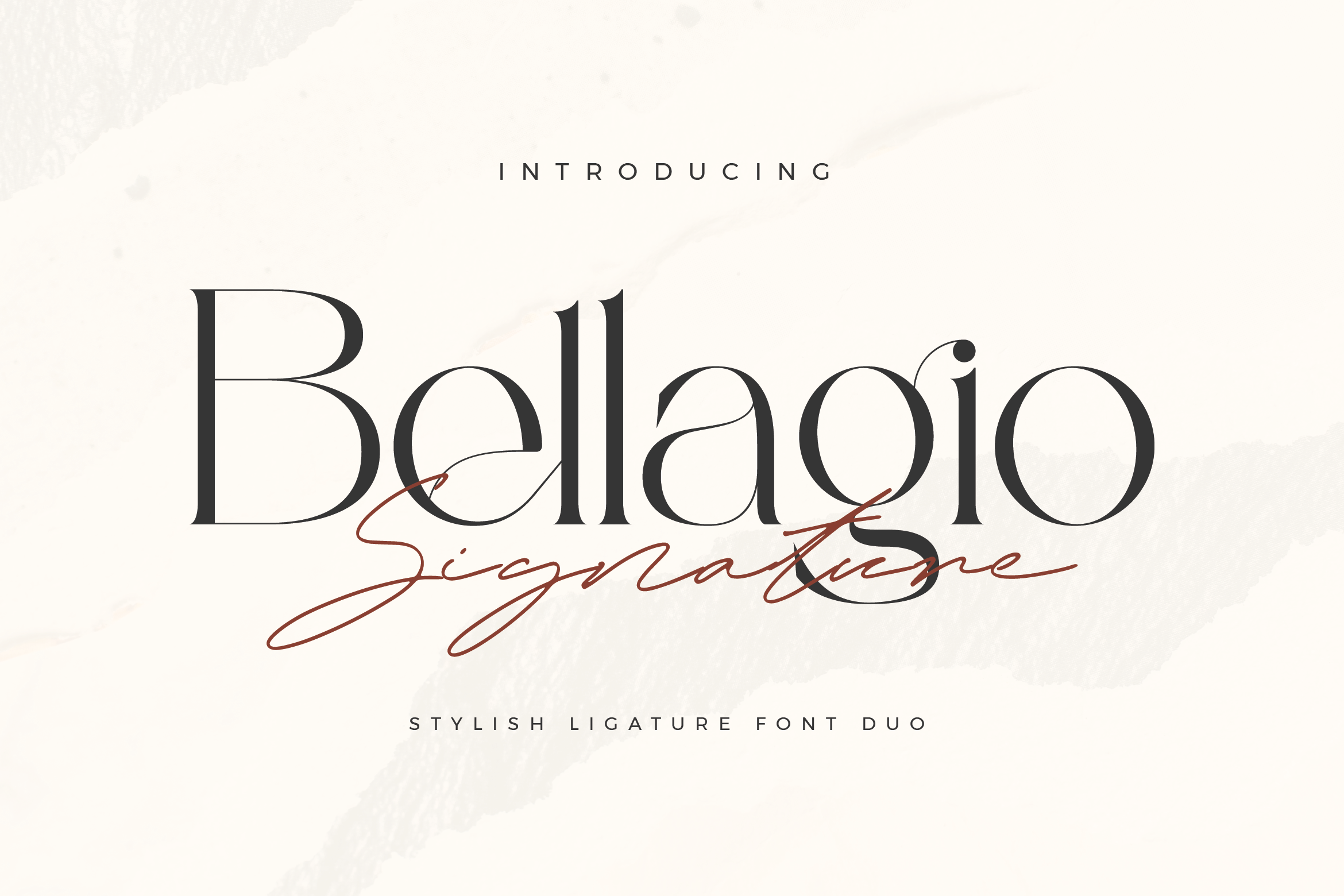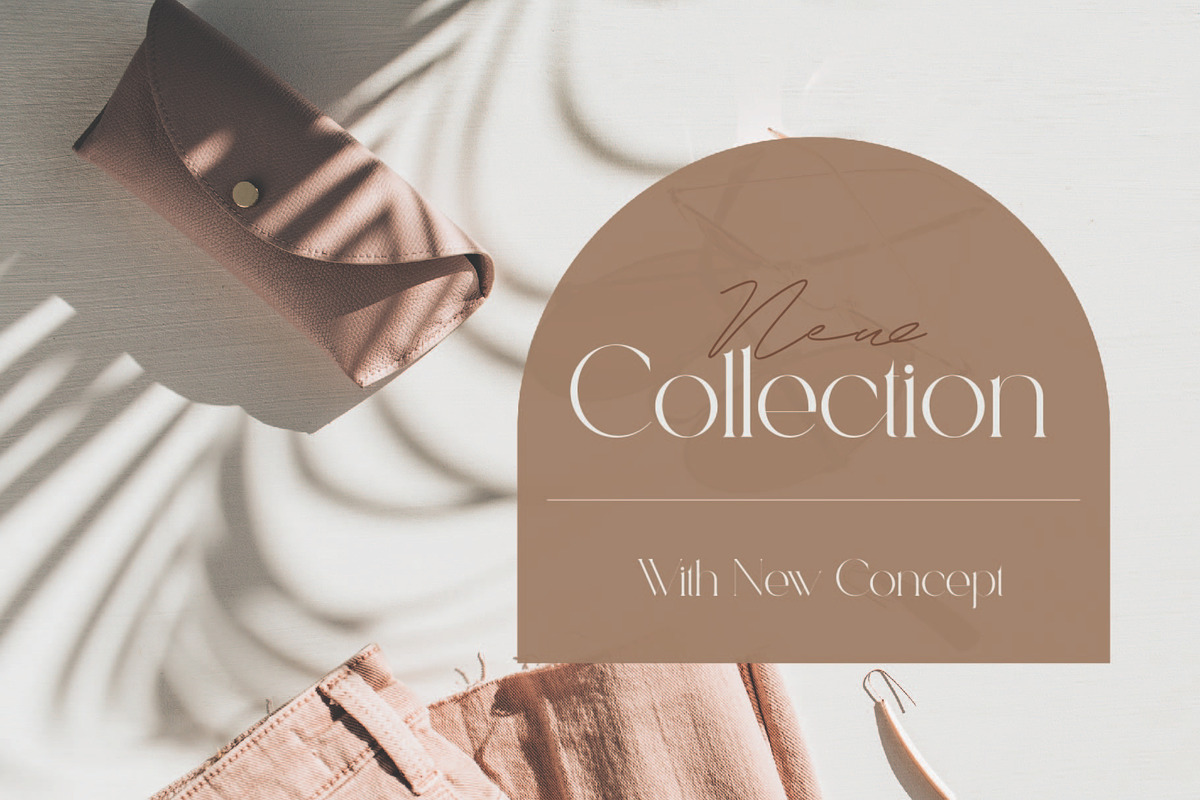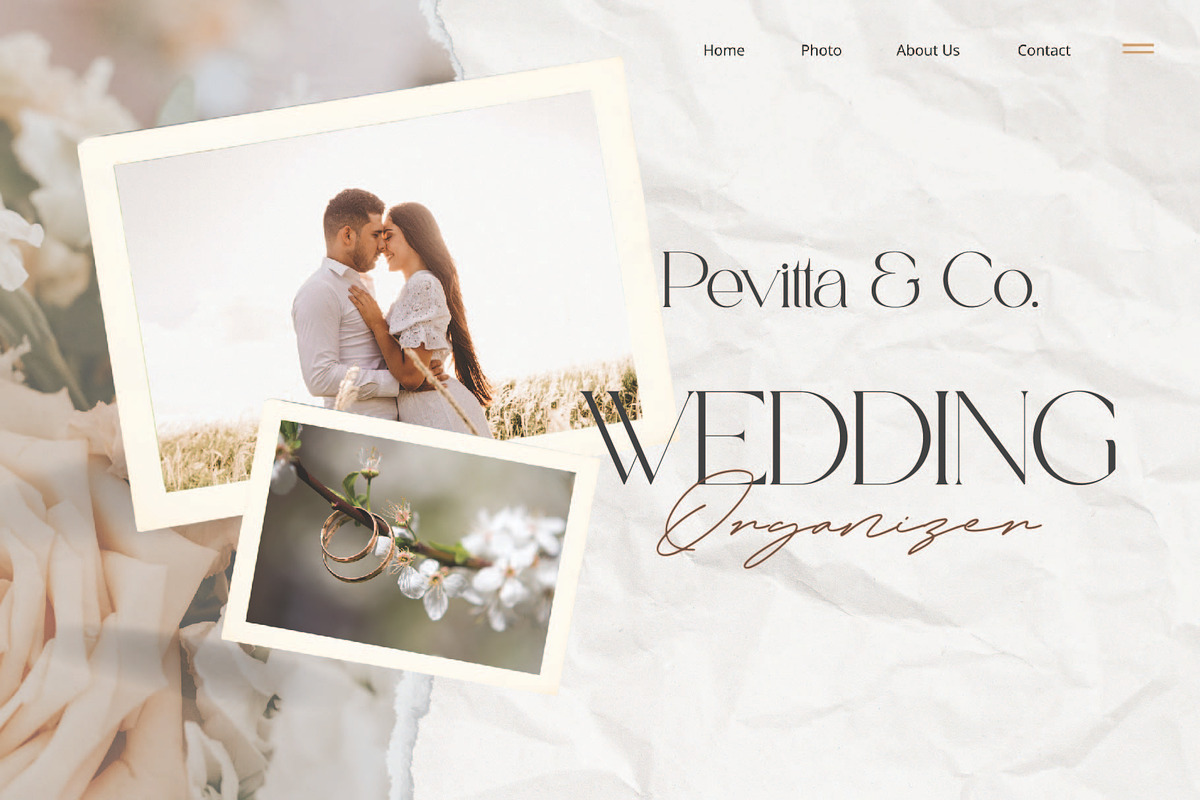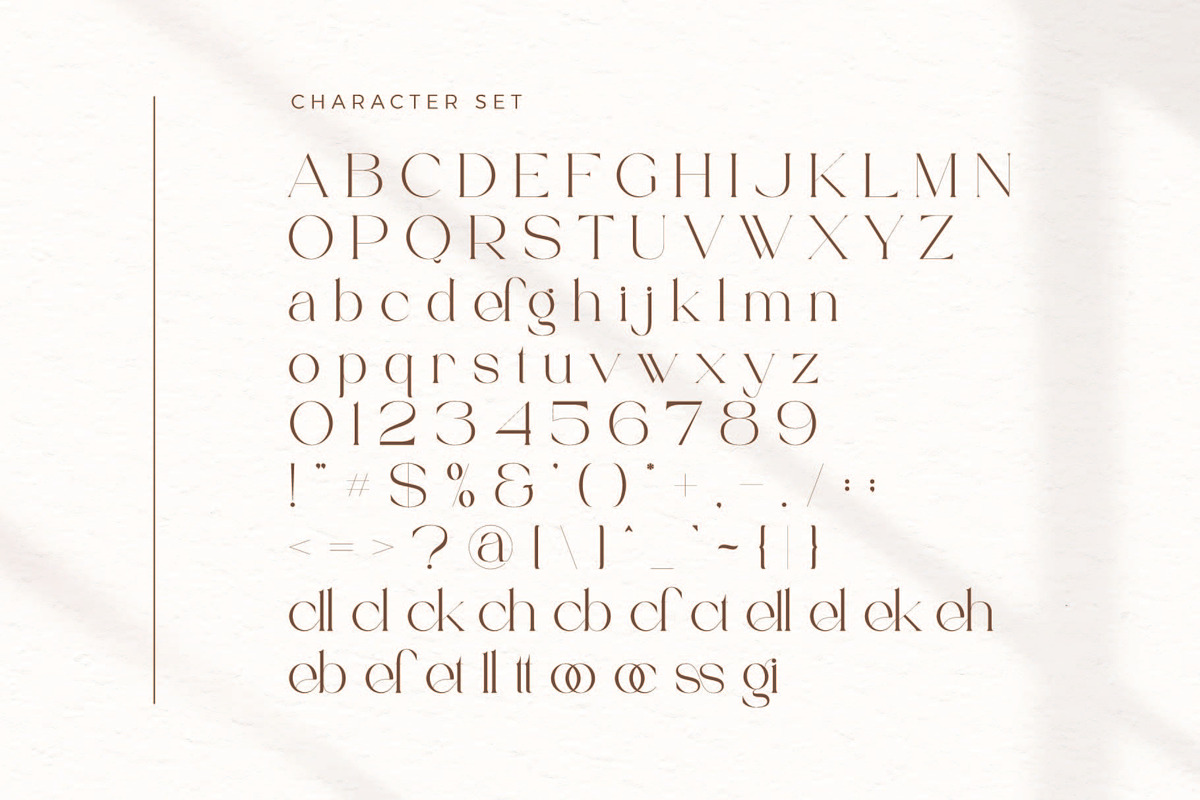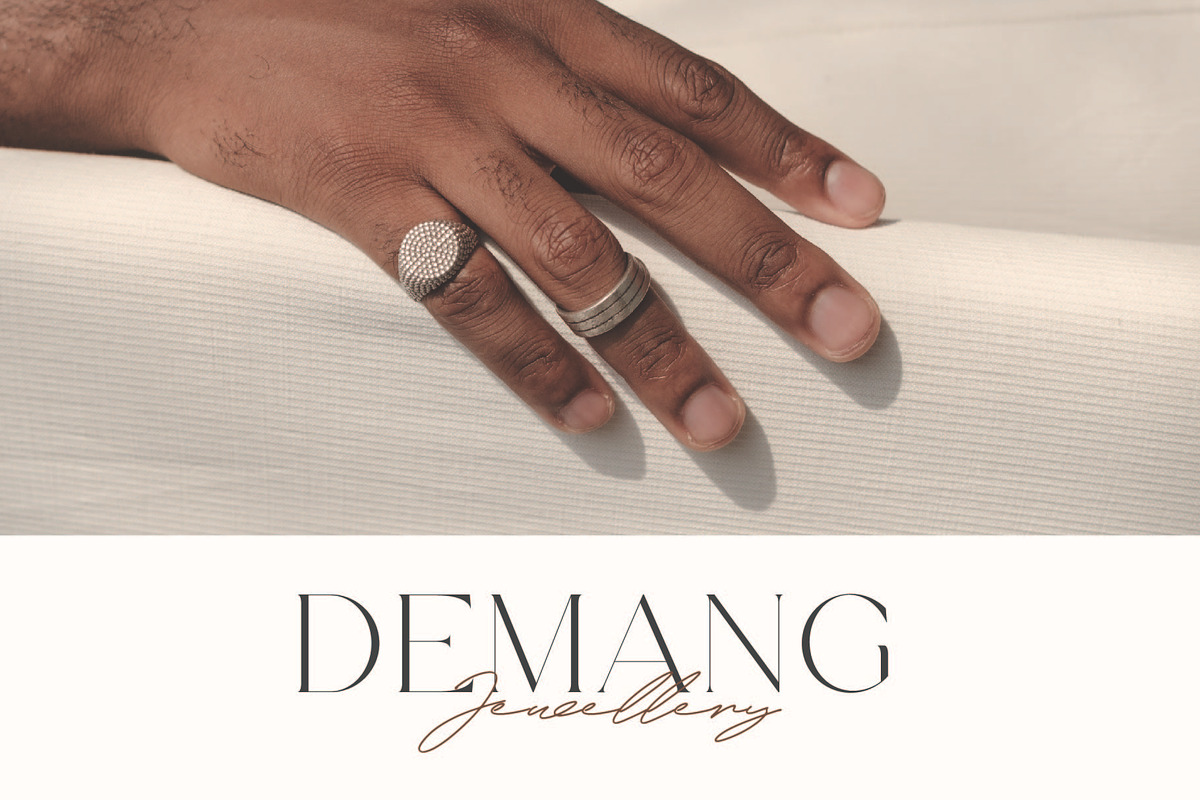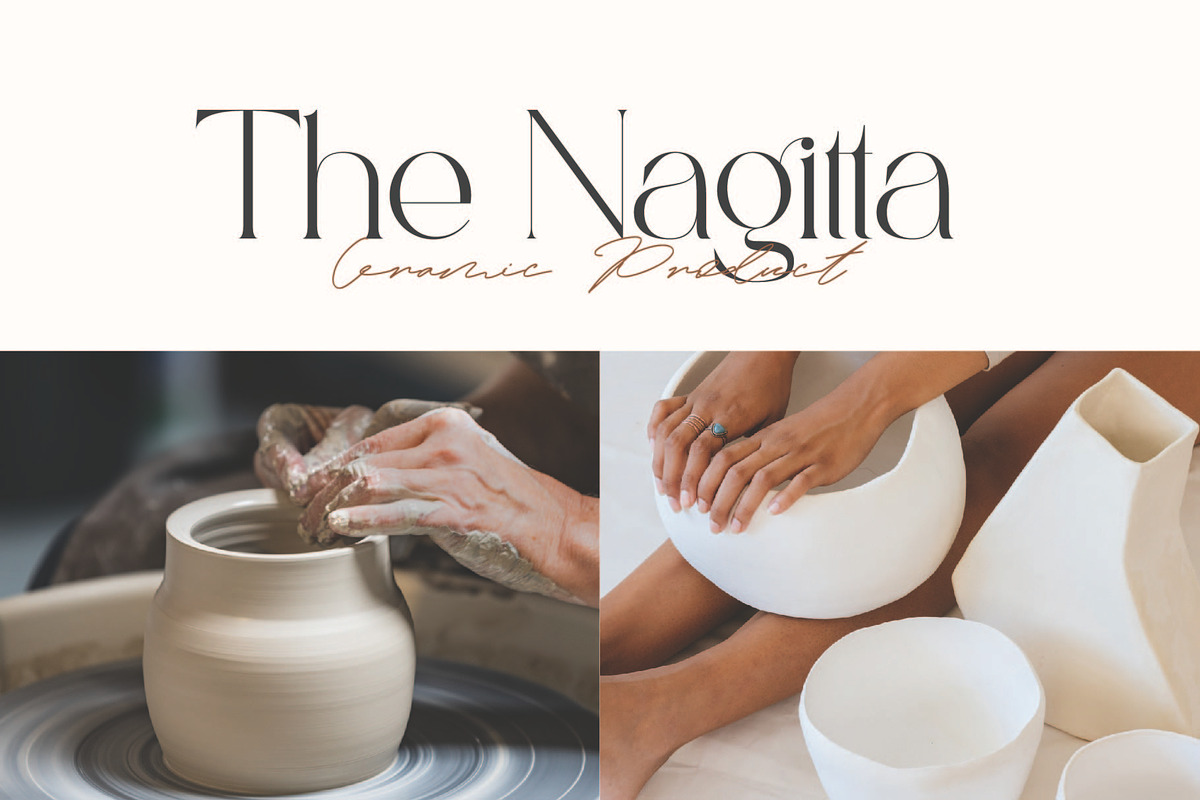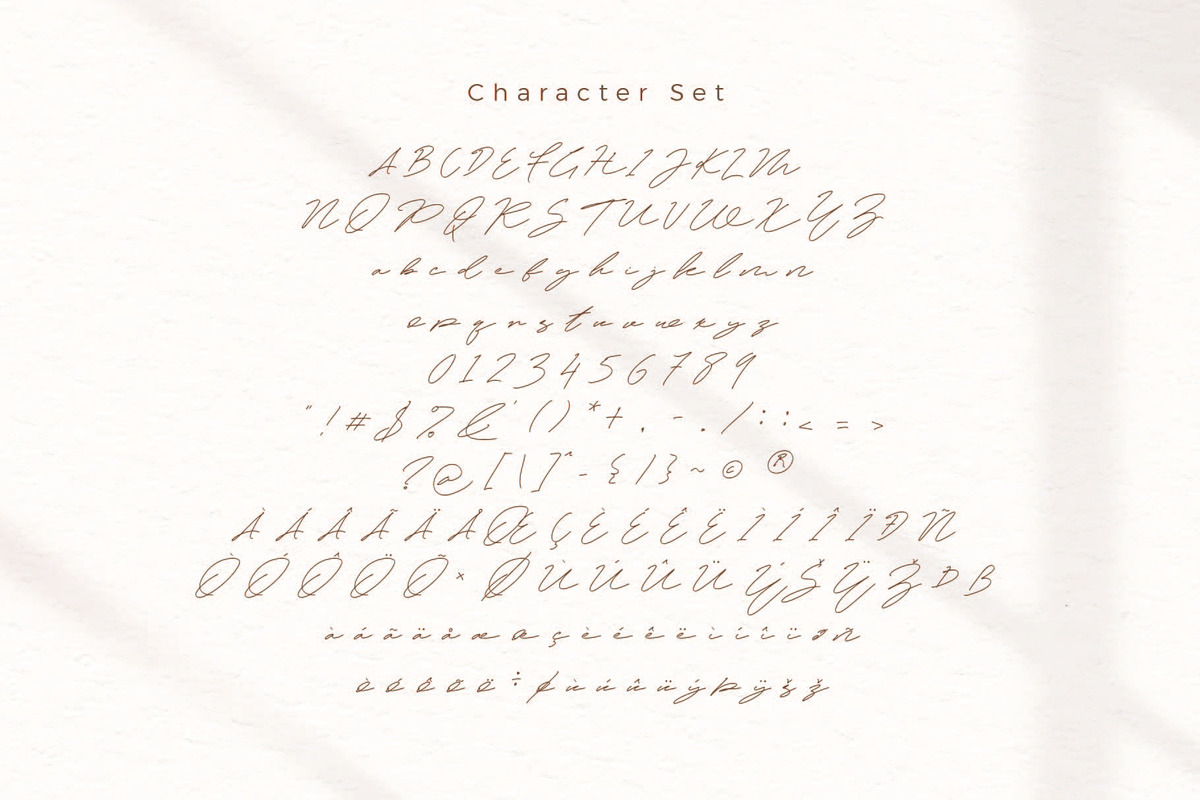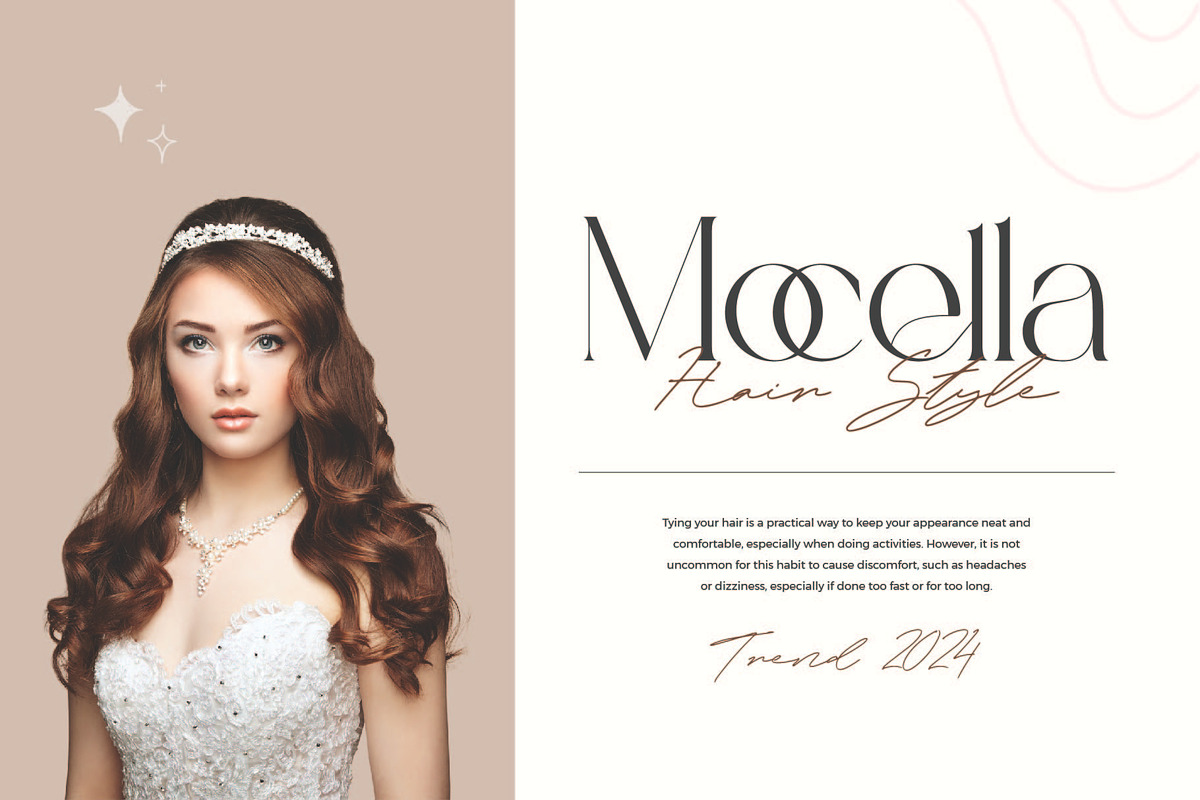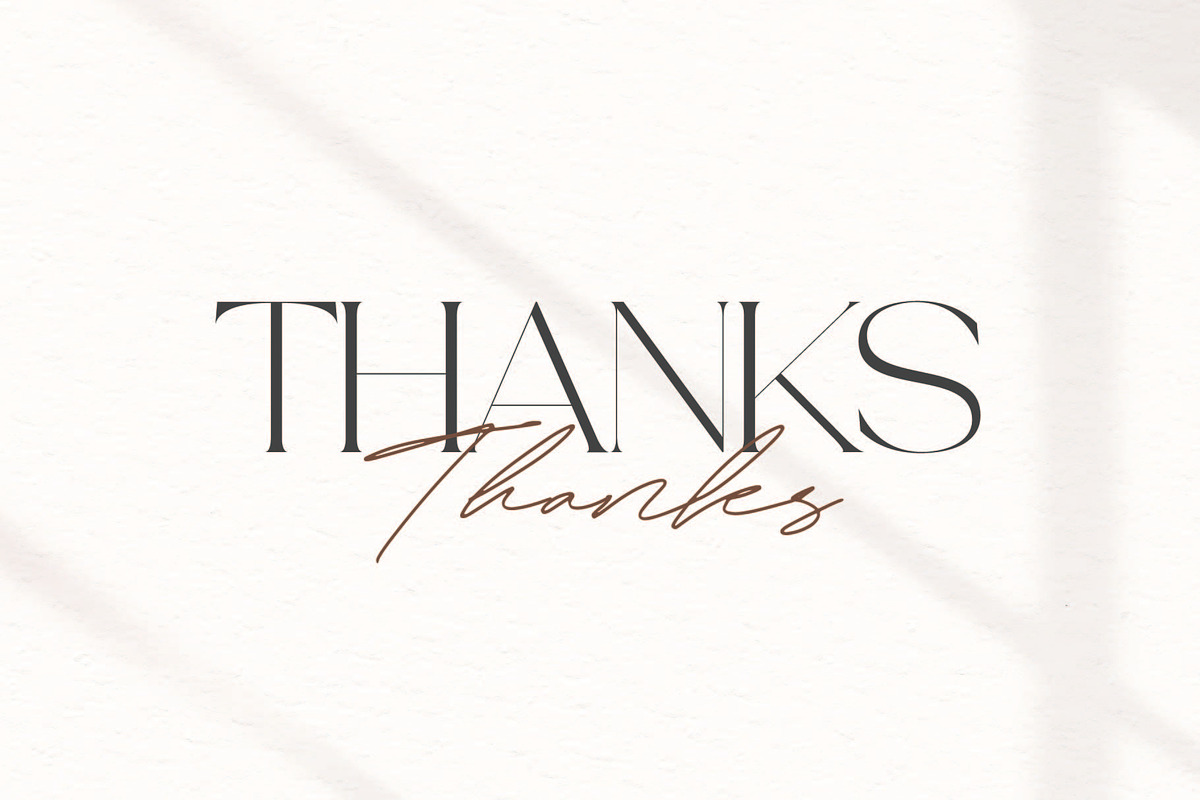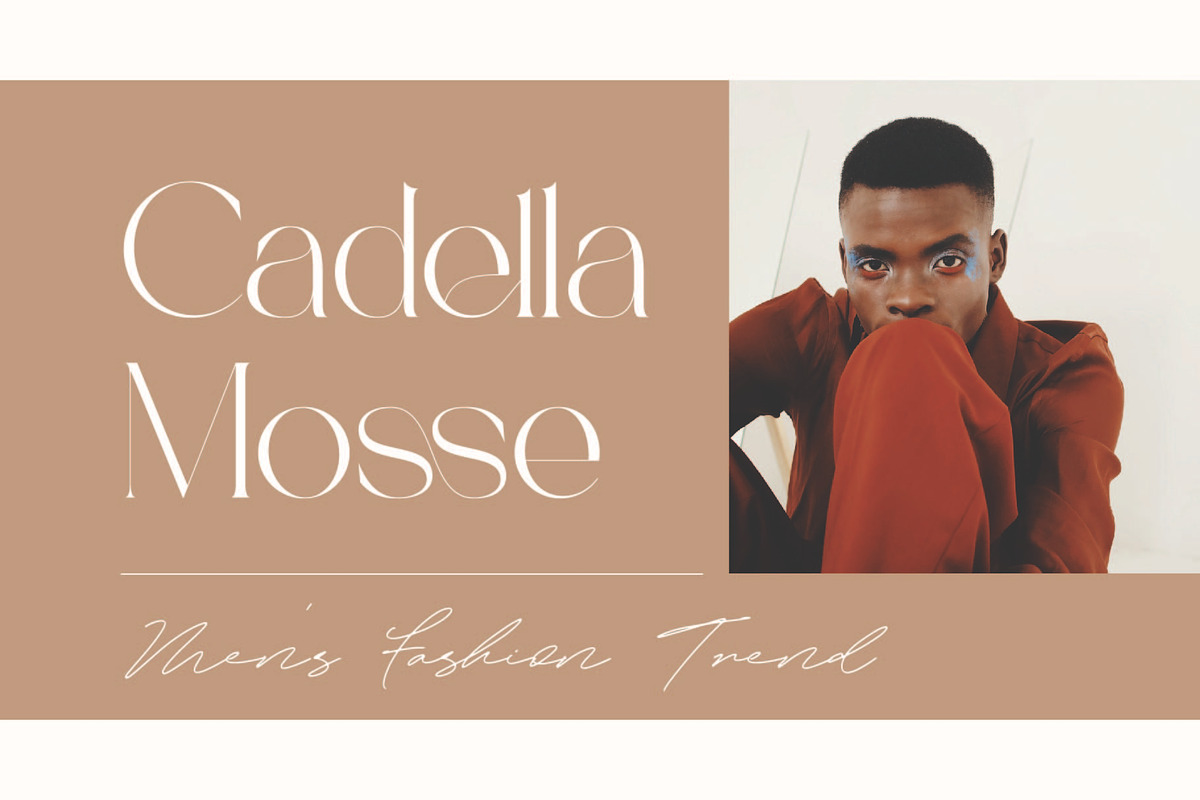
Bellagio Signature Font Duo
Bellagio & Signature - Stylish Duo Ligature Typeface Display Serif inspired by the famous minimalist logo perfect for the purposes of designing templates, brochures, videos, advertising branding, logos and more.